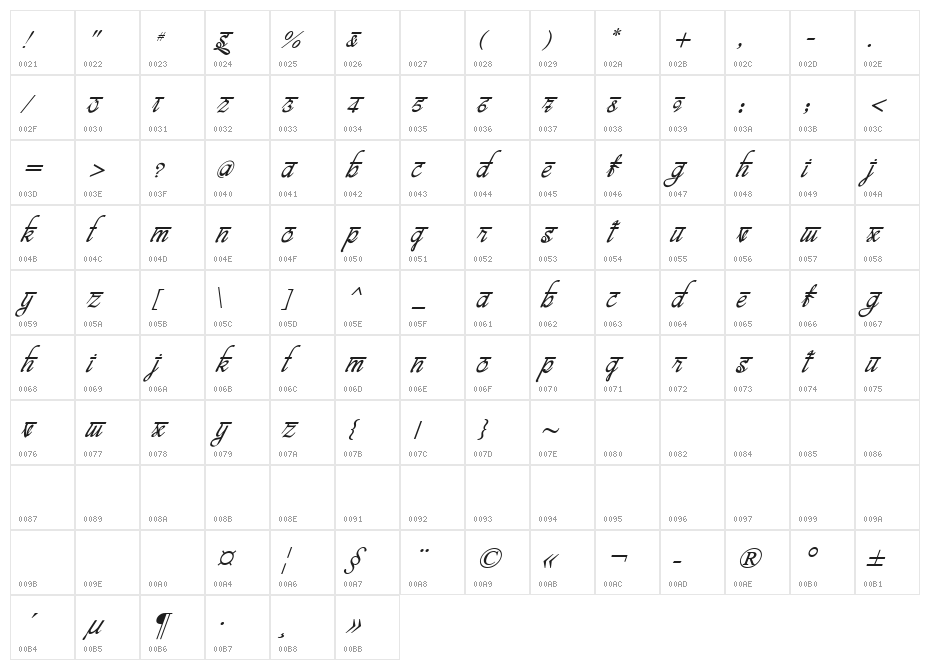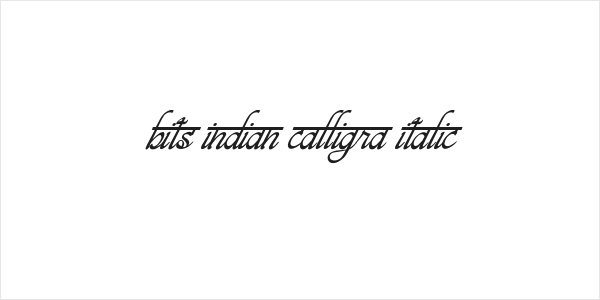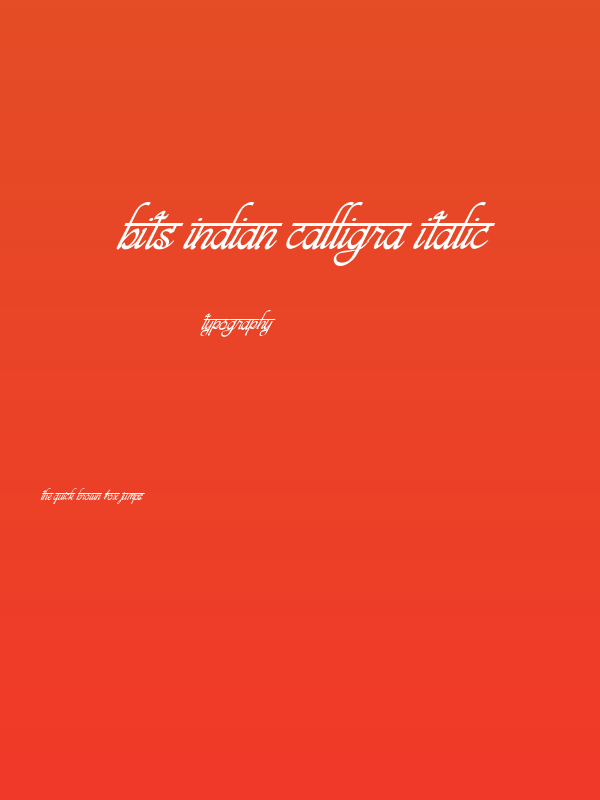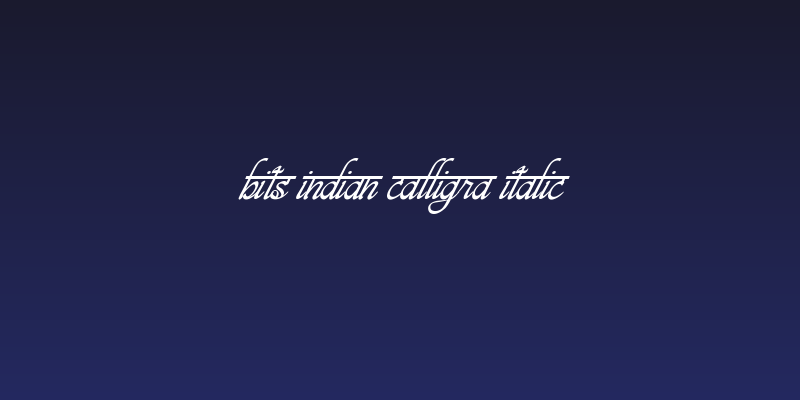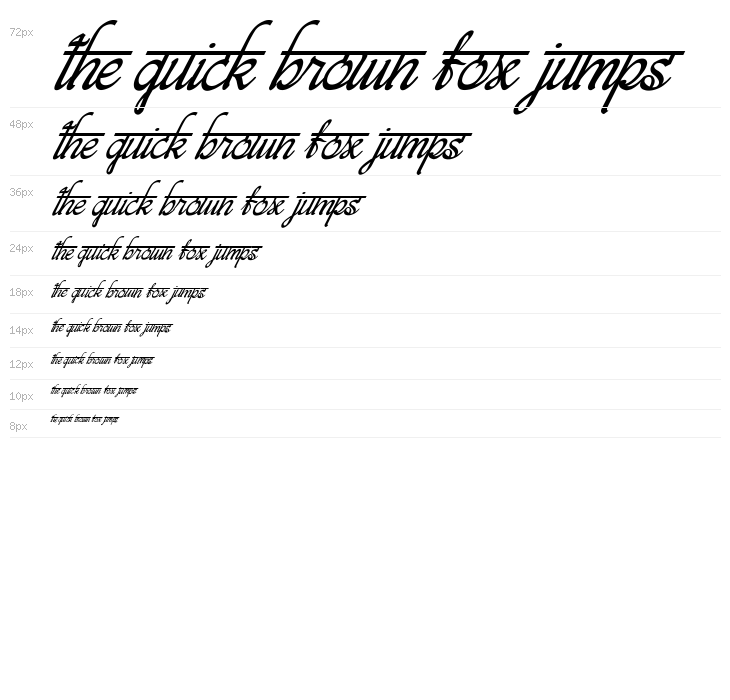
bits indian calligra Italic Font
bits indian calligra Italic Description
This font features a flowing, cursive style with elegant, sweeping lines that give it a sophisticated and artistic appearance. The characters are connected, creating a seamless and fluid look that is reminiscent of traditional calligraphy. The strokes are consistent in width, providing a balanced and harmonious aesthetic. The italic slant adds a dynamic and graceful touch, enhancing the overall elegance of the design. The font includes a full set of uppercase and lowercase letters, numerals, and a variety of special characters, making it versatile for various applications.
| Proposed Projects | Ideal for wedding invitations, elegant branding, greeting cards, and artistic projects. |